Creating a successful coffee brand requires more than just high-quality espresso. Visual presentation plays a vital role in attracting customers. Therefore, selecting high-impact fonts for coffee packaging can make your coffee bags, takeaway cups, and bakery boxes look instantly inviting.
Whether you run a cozy local espresso bar or an online coffee roastery, here are top font styles to elevate your product packaging.
1. Retro Display Fonts for Nostalgic Coffee Bags
Nostalgic 70s aesthetics evoke warmth, comfort, and artisan craftsmanship. Using a wavy retro typeface creates a cozy, friendly brand identity. For instance, putting bold retro lettering on roasted coffee bean bags makes your product stand out on retail shelves.
2. Monoline Script Fonts for Aesthetic Coffee Cups
Minimalist coffee cups are extremely popular on Instagram and Pinterest. A clean monoline script font adds a personal hand-crafted touch to clear plastic bottles and paper cups. Because the line weight remains even, it prints crisp and clear without smudging.
3. Classic Round Serifs for Gourmet Specialty Labels
If your roastery offers premium specialty beans, refined typography is essential. A softened serif font brings timeless sophistication to origin labels, tasting notes, and menu boards without feeling overly formal.
Recommended Fonts from Artisan Font
- Groovy Signature: A bold, wavy retro display font perfect for eye-catching coffee bag logos.
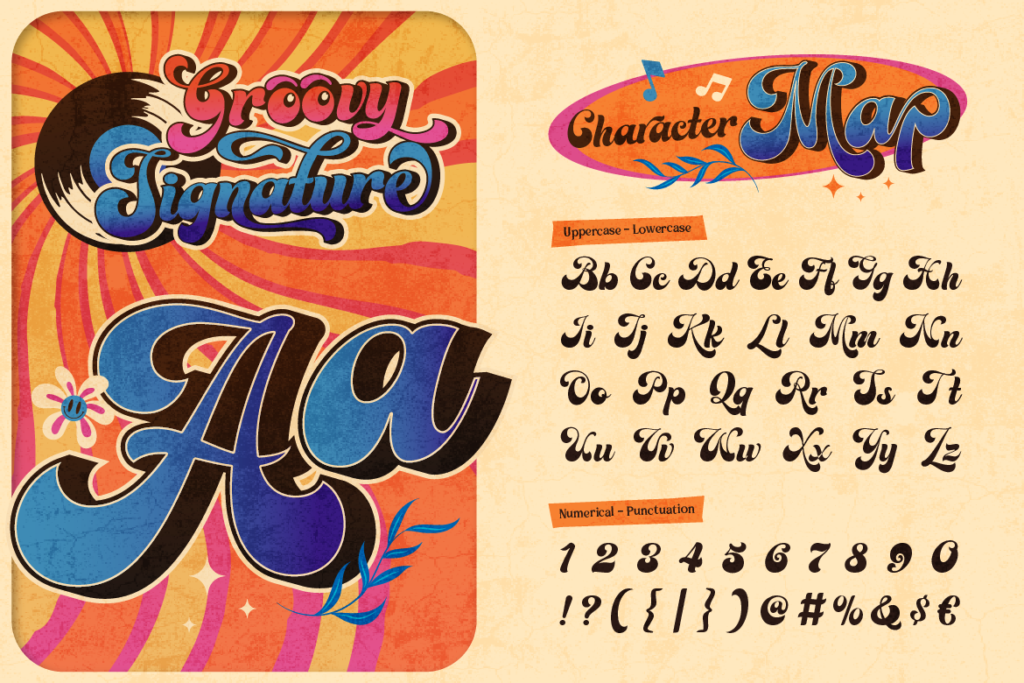
- Racole: A classic monoline script font that gives takeaway cups an aesthetic signature touch.
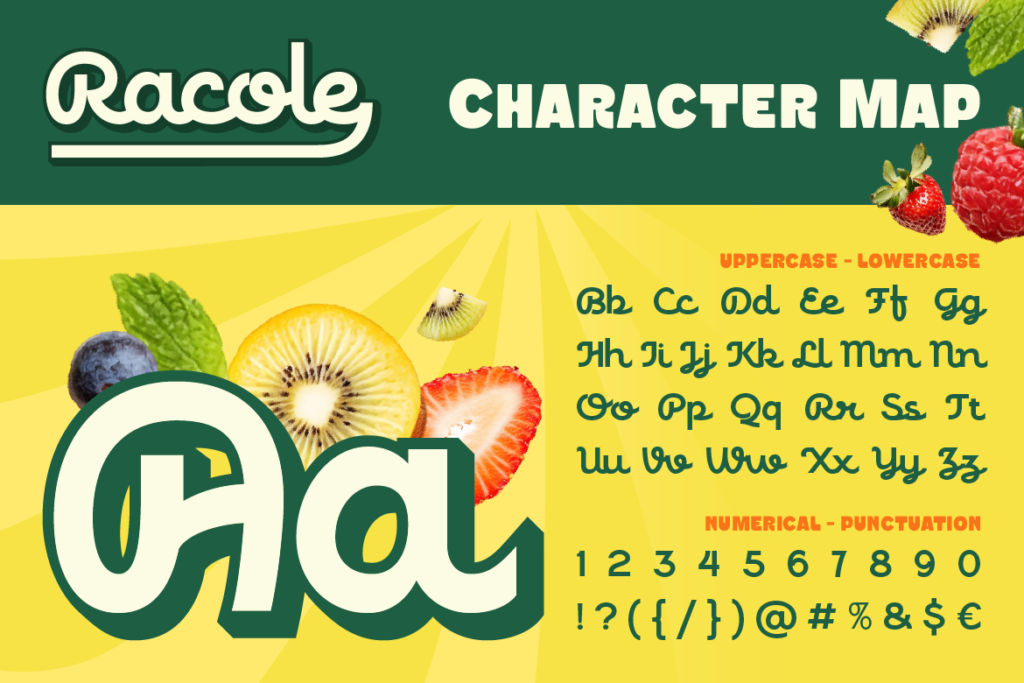
- Laghino: A classic round serif font crafted for luxury gourmet coffee labels.